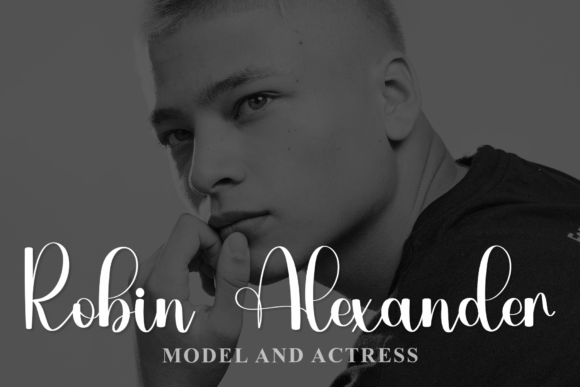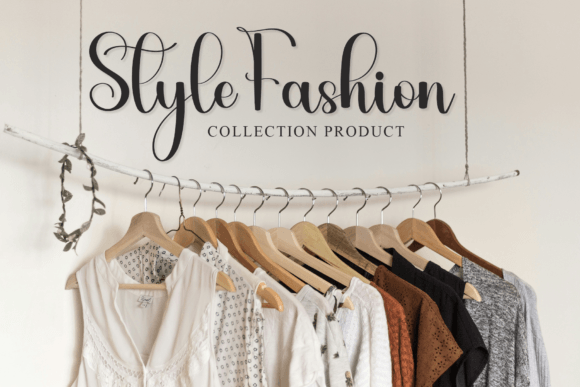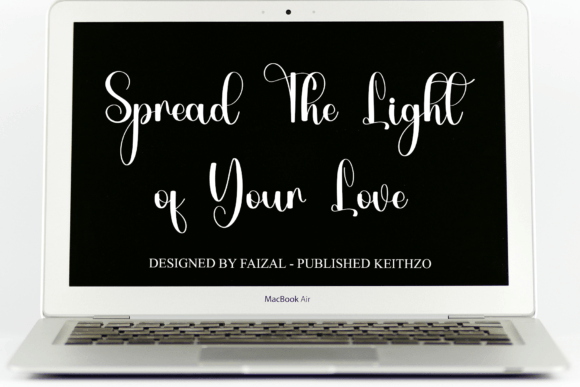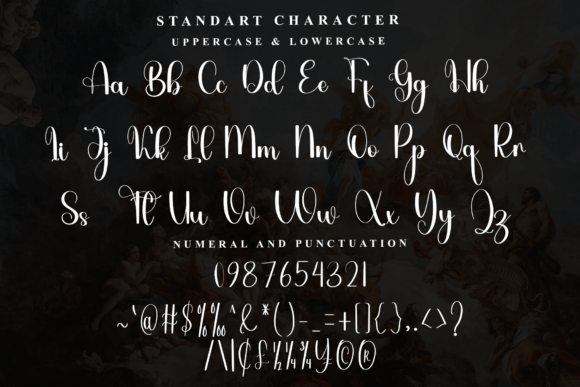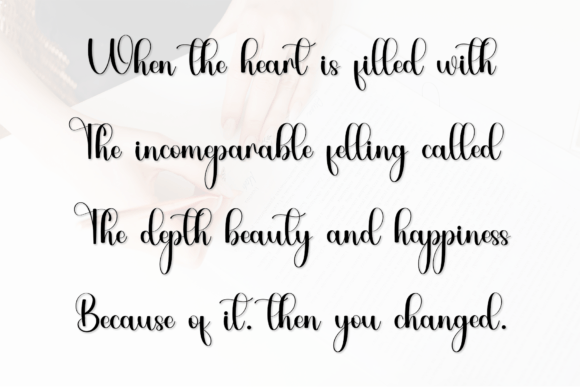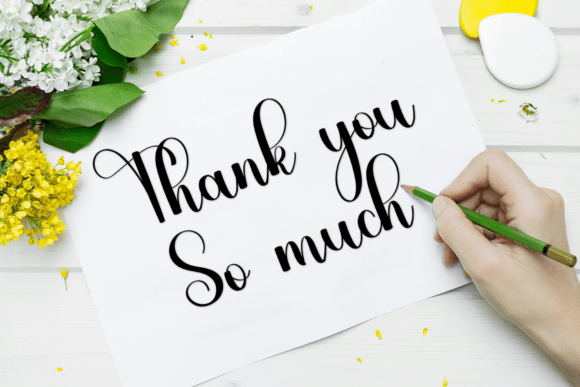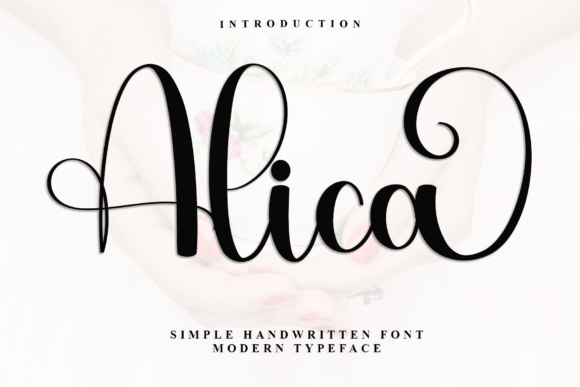
Introducing Alica Font: Elevate Your Designs with Elegance and Flair
In the world of typography, a font can make or break a design. For designers and crafters seeking to add a touch of sophistication and whimsy to their creations, Alica Font is an exceptional choice. This delicate, elegant, and flowing handwritten font is designed to bring a new level of refinement and beauty to your projects.
The Beauty of Alica Font
Alica Font stands out for its beautiful and well-balanced characters, making it a versatile addition to a wide range of designs. Whether you’re working on a branding project, crafting a logo, or creating engaging content, Alica’s elegant flow and delicate features are sure to enhance your work. Its unique charm and character make it an ideal choice for designers looking to add a personal touch to their creations.
One of the key advantages of Alica Font is its versatility. It seamlessly matches a wide pool of designs, from modern and minimalist to vintage and luxurious. This adaptability makes Alica an invaluable asset for designers and crafters who work on diverse projects or prefer to experiment with different styles. With Alica, you can breathe new life into your most creative ideas and watch them flourish in ways you never thought possible.
Alica Font is PUA (Private Use Area) coded, which means accessing its extensive range of glyphs and ligatures is incredibly straightforward. This feature is particularly beneficial for designers who want to dive deep into creative details without the hassle of complicated font management. With PUA coding, you can easily access and incorporate the amazing glyphs and ligatures that Alica has to offer, allowing for even more customization and creativity in your designs.
Applications of Alica Font
The applications of Alica Font are vast and varied. Here are a few ideas to get you started:
- Branding and Logos: Use Alica to create elegant and memorable brand identities that stand out from the crowd.
- Stationery and Invitations: Add a touch of sophistication to your stationery, invitations, and greeting cards with Alica’s flowing script.
- Web Design: Enhance your website’s aesthetic with Alica, making it more inviting and engaging for visitors.
- Packaging: Elevate your product packaging with Alica’s unique and eye-catching style, making your products more noticeable on store shelves.
- Social Media Graphics: Create stunning social media graphics that capture attention and convey your message with elegance.
Tips for Using Alica Font
To make the most out of Alica Font, consider the following tips:
- Experiment with Sizes: Alica’s elegance shines at various sizes. Experiment with different sizes to see how it impacts your design.
- Play with Colors: While Alica looks stunning in classic black and white, don’t be afraid to experiment with colors that match your brand or design theme.
- Combine with Other Fonts: Alica pairs well with a variety of fonts. Try combining it with contrasting fonts to create visual interest.
- Utilize Glyphs and Ligatures: Take full advantage of Alica’s PUA coding by incorporating glyphs and ligatures into your design to add depth and personality.